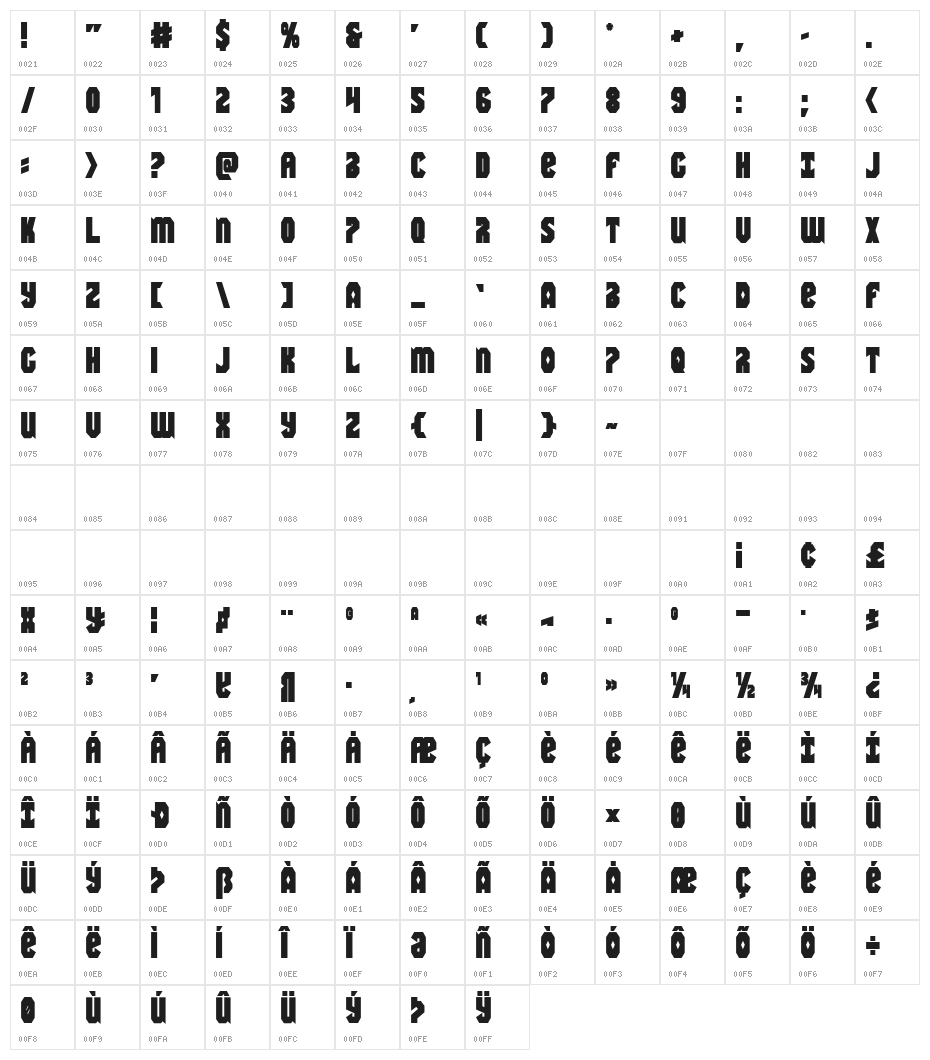
Warrior Nation Bold Font
Warrior Nation Bold Description
This bold, geometric font features strong, angular lines and a commanding presence. Each character is designed with sharp edges and a blocky structure, creating a sense of strength and stability. The uppercase letters are particularly striking, with a uniform height and width that contribute to the font's cohesive appearance. The numerals and special characters maintain the same bold style, ensuring consistency across all text elements. This font's unique design makes it ideal for projects that require a bold statement or a modern, edgy look.
Proposed ProjectsIdeal for branding, posters, headlines, and any project needing a bold, modern look.